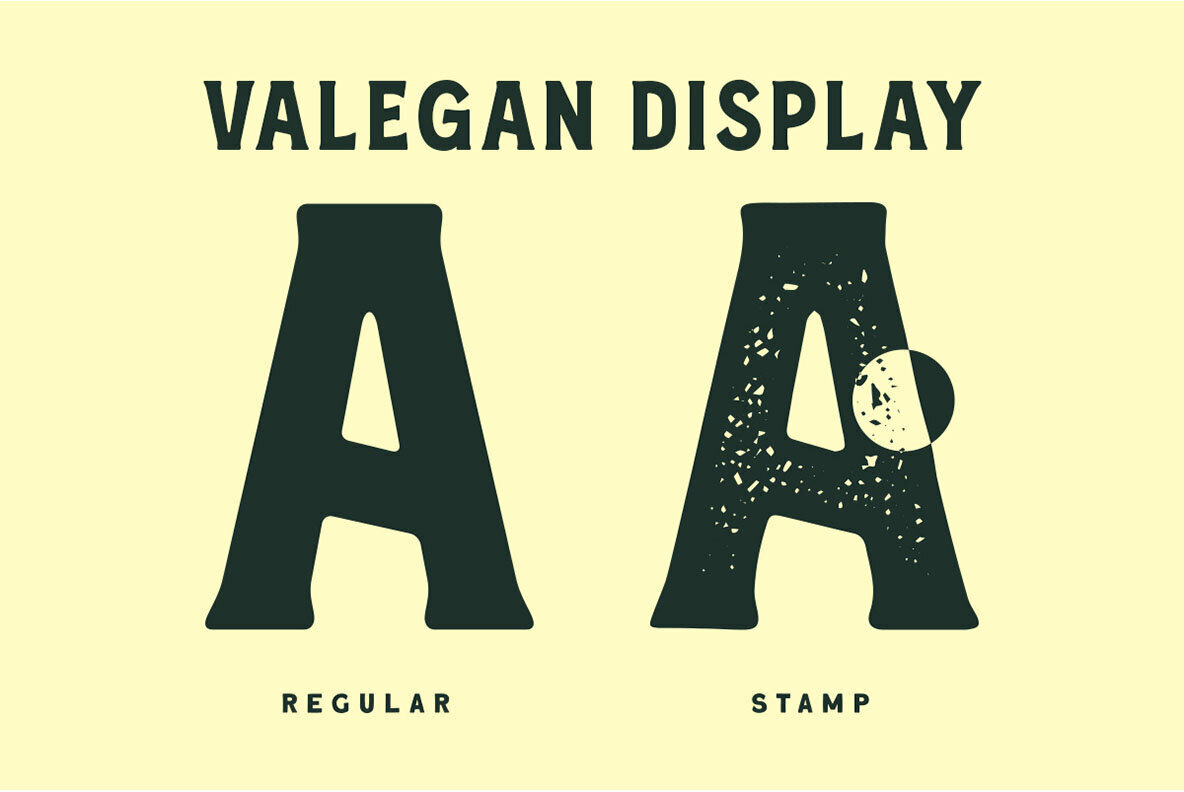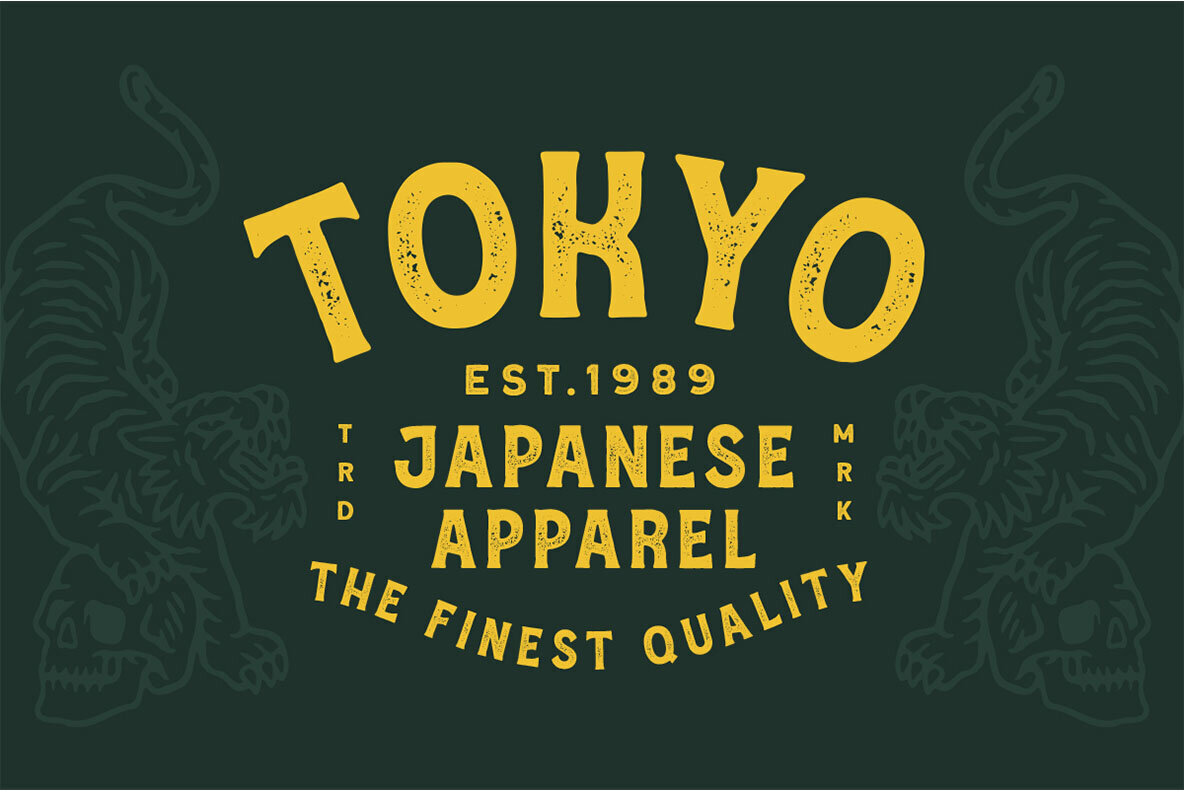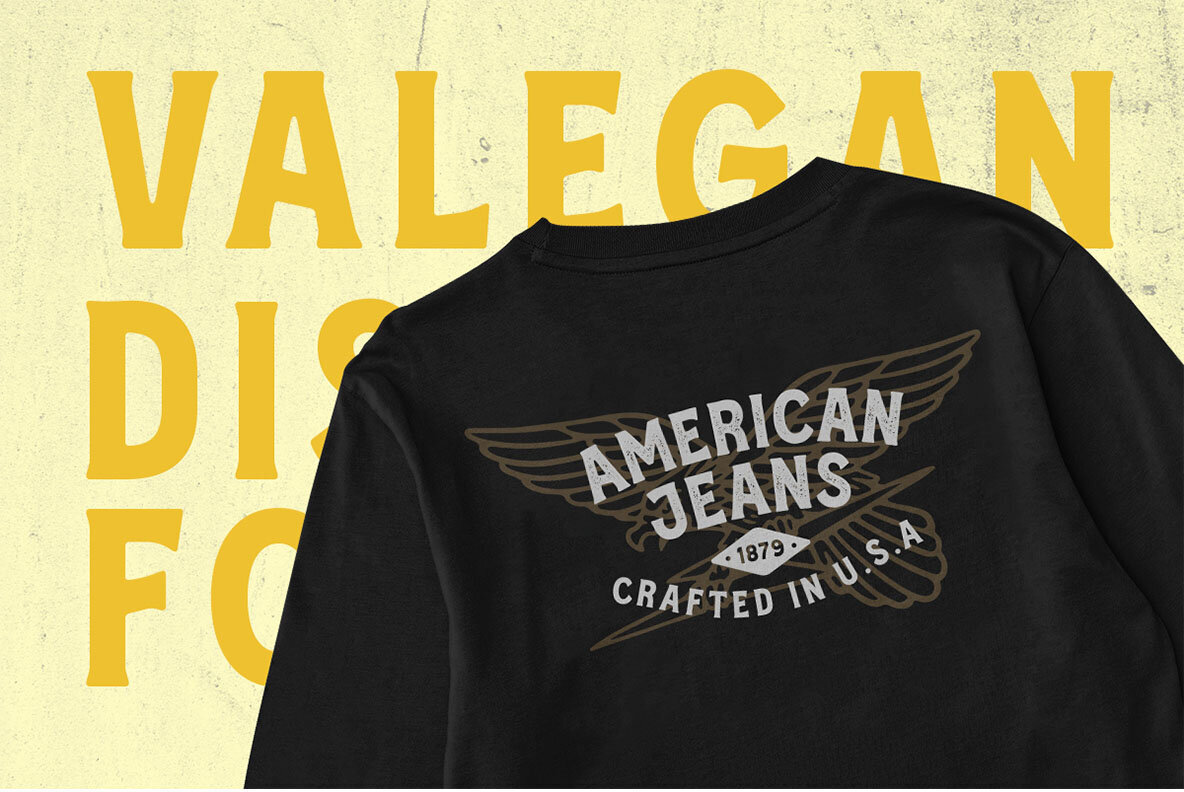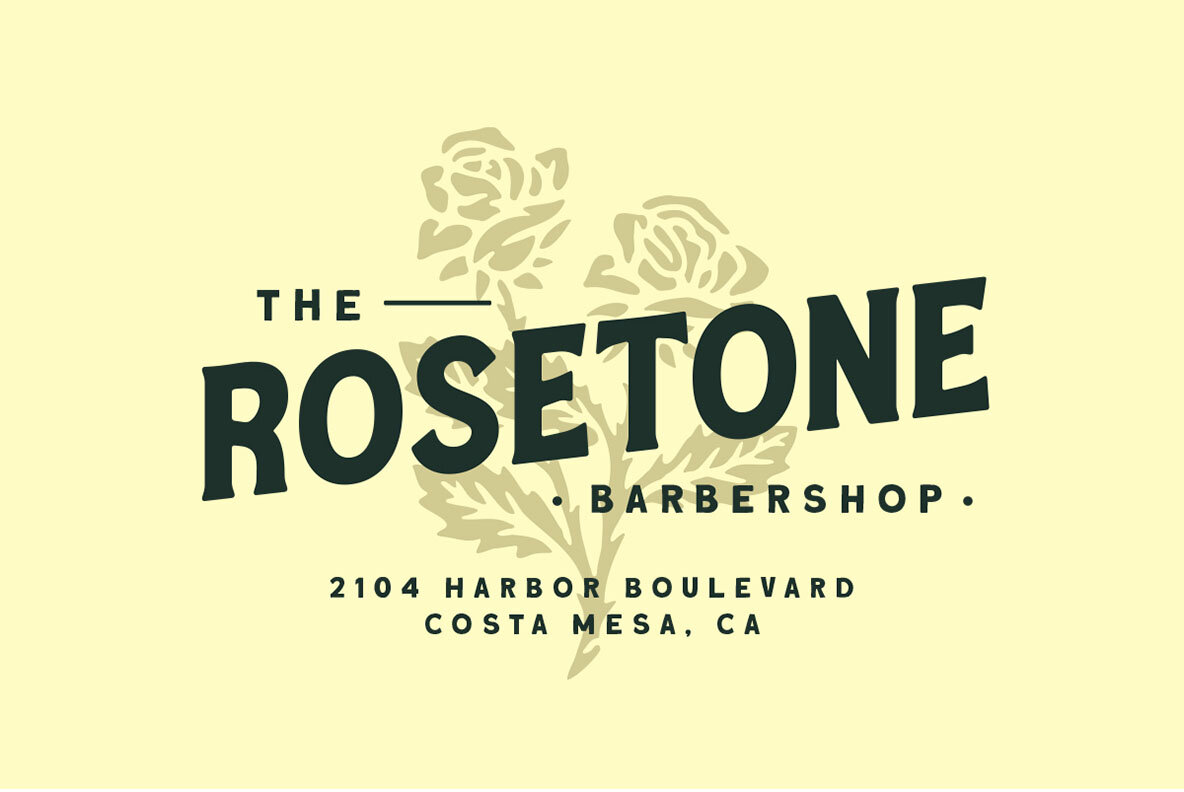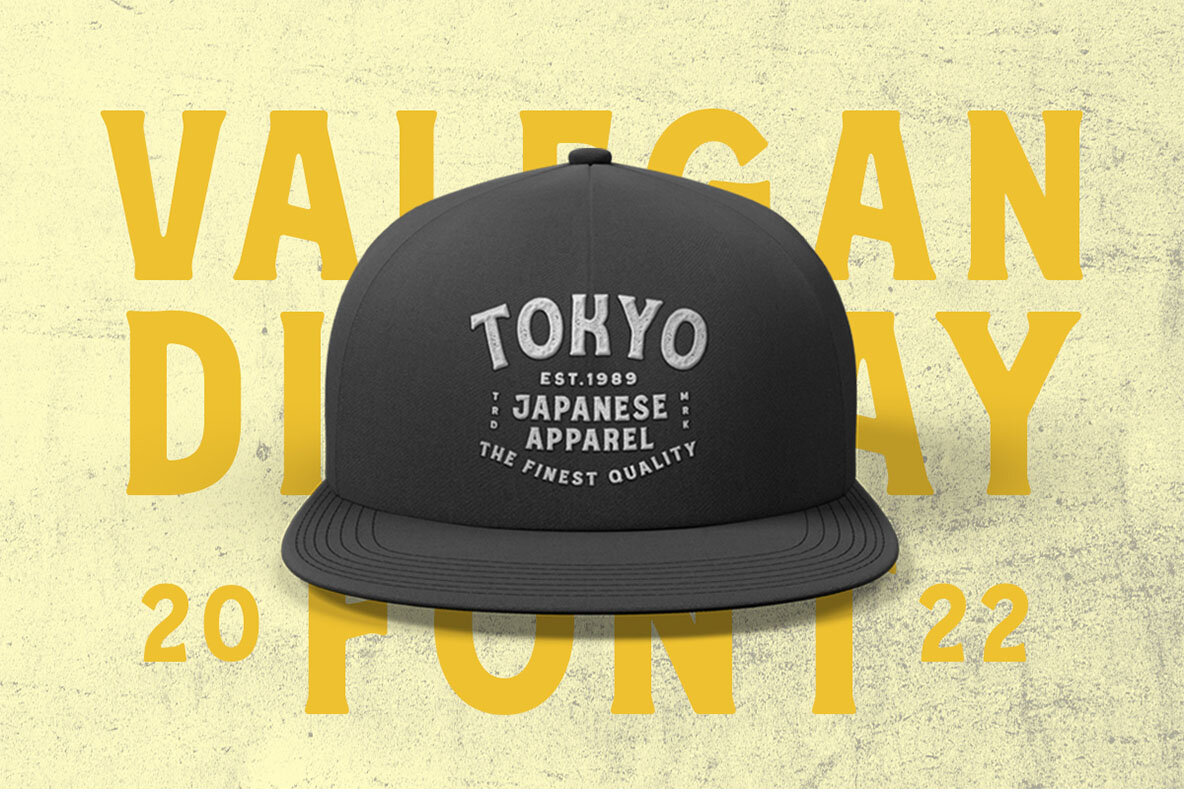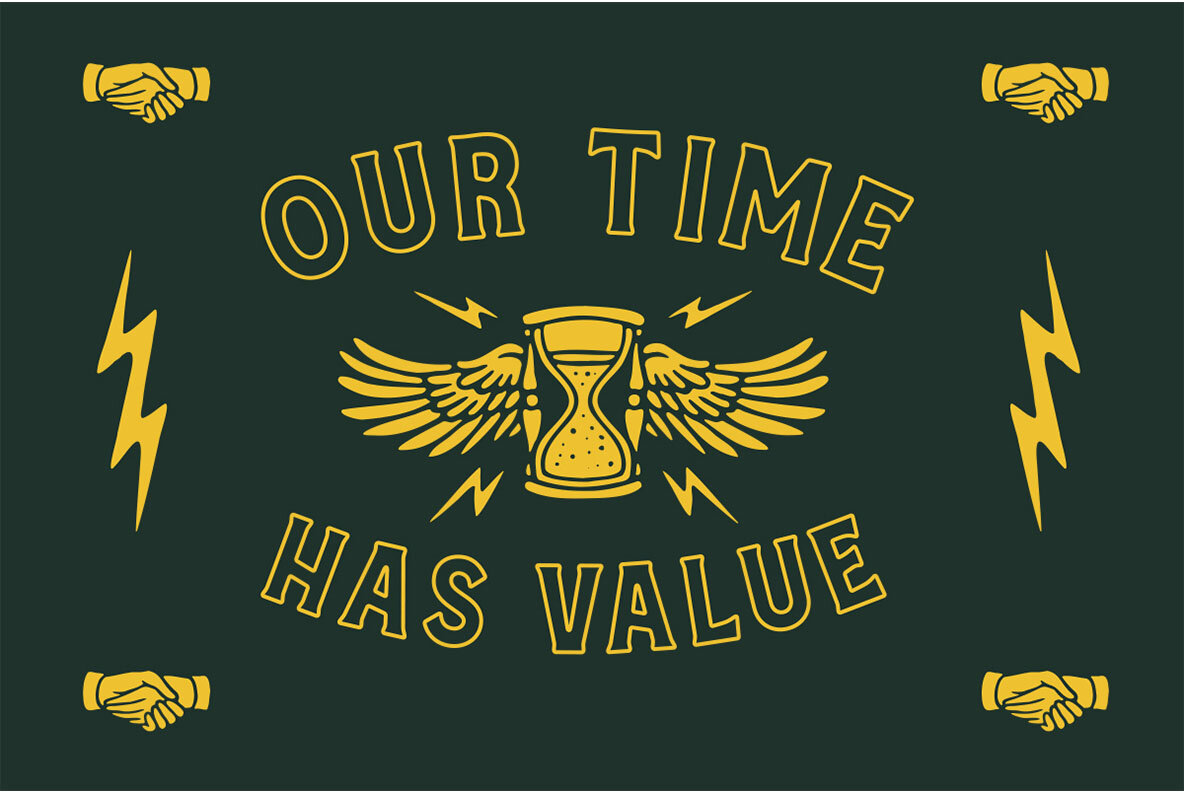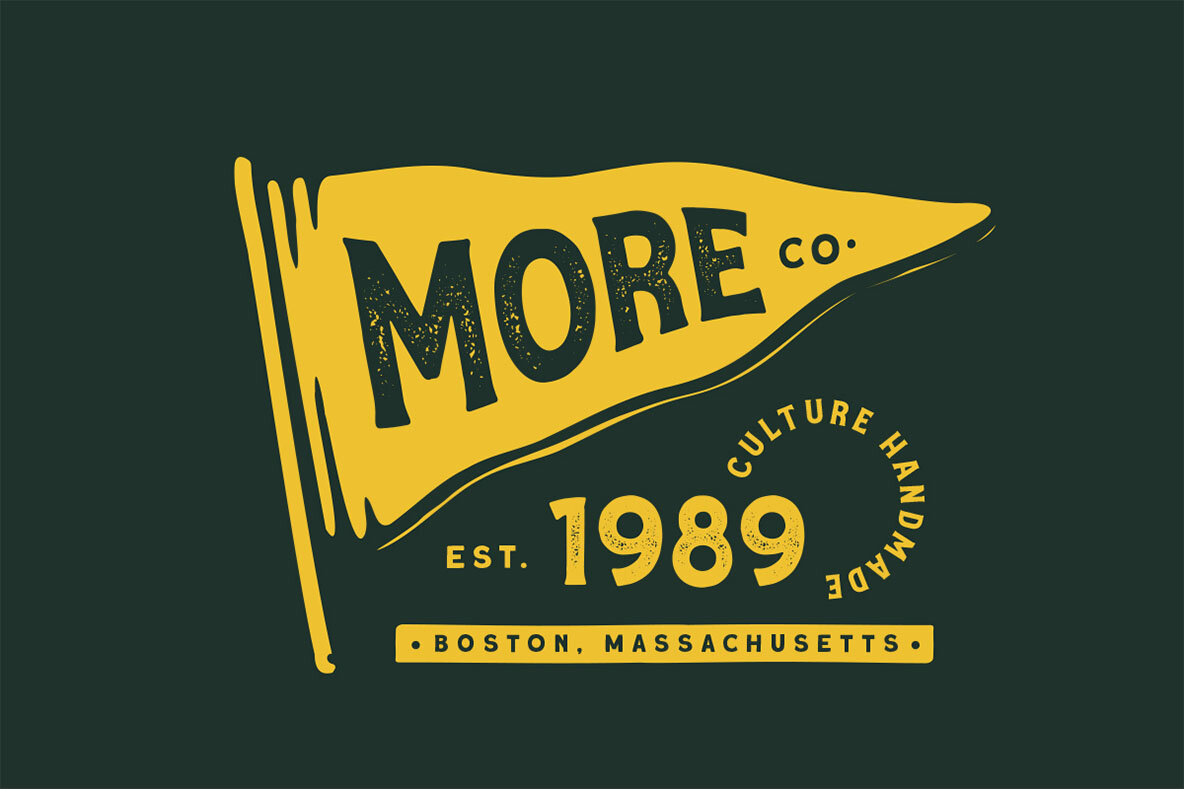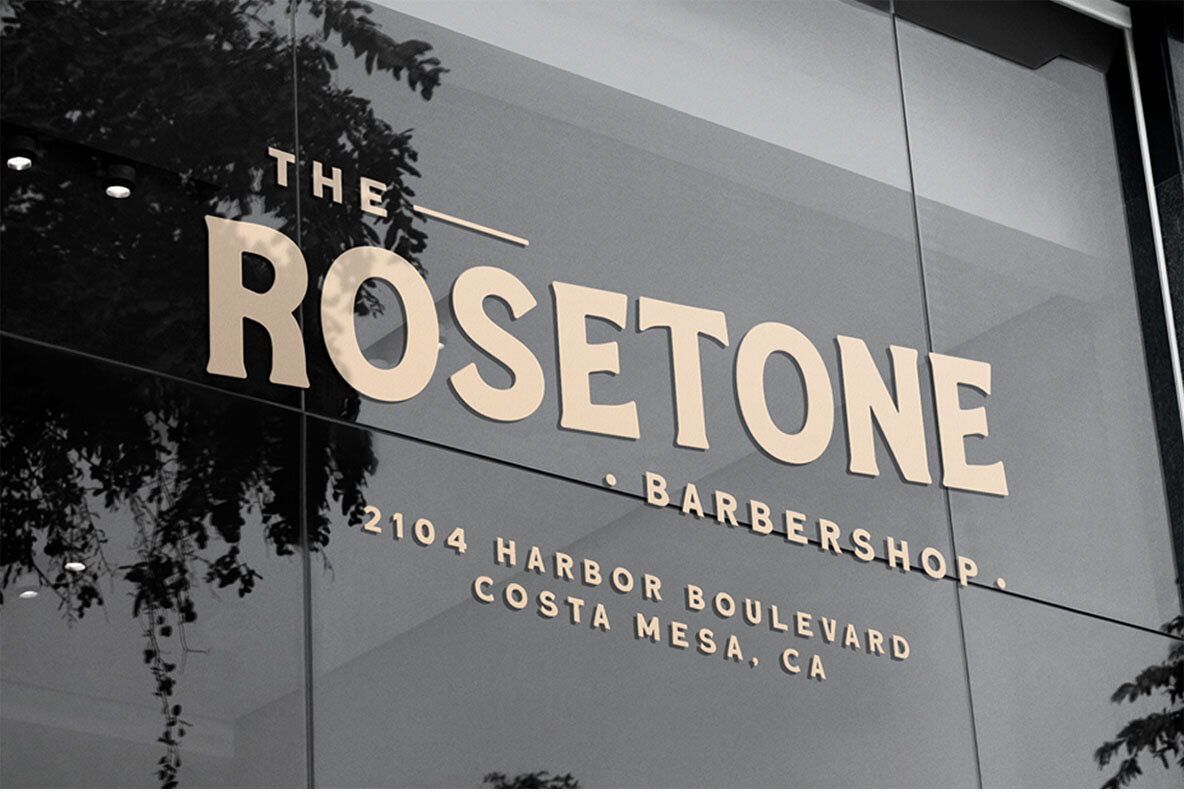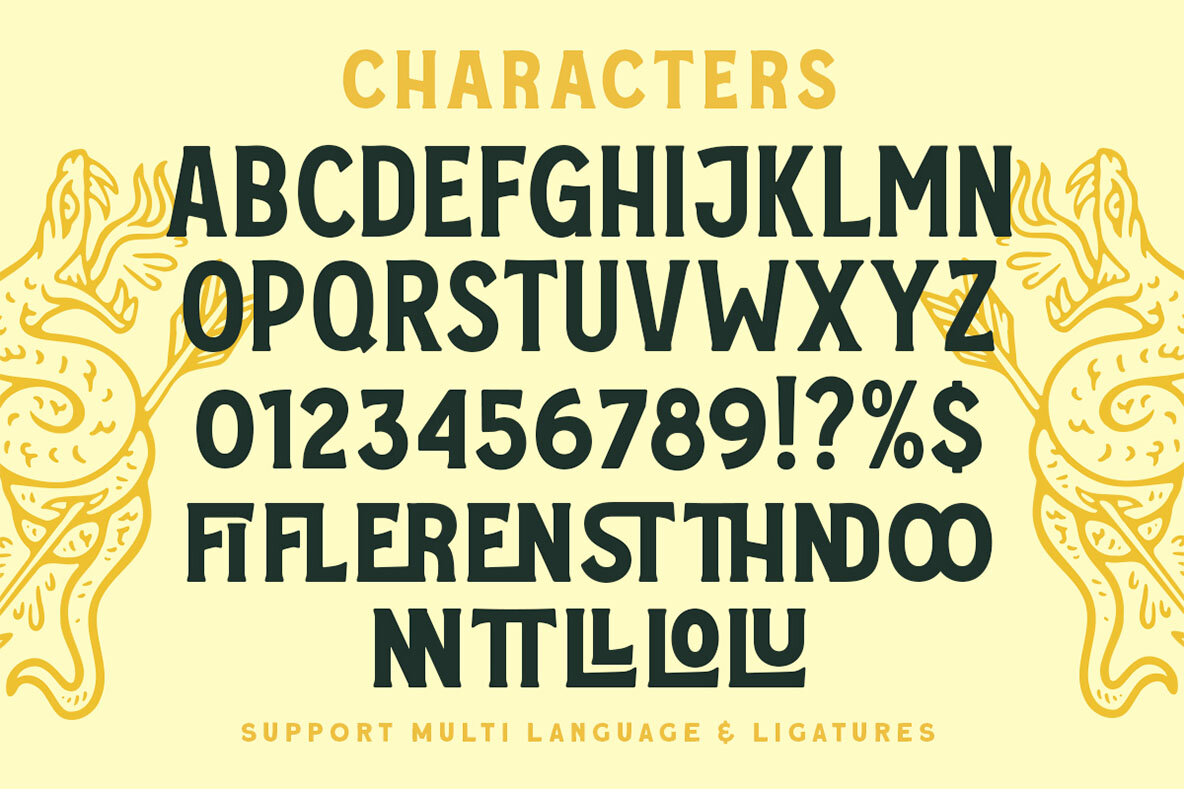
Valegan Font
Valegan by Letterhend Studio invites the beauty of a bygone era into modern design projects with its vintage-inspired display style. Perfectly suited for a variety of applications, this typeface enriches logos, headlines, signage, and formal documents such as invitations and greeting cards. Whether you're crafting a magazine spread or designing wedding stationery, Valegan adds an authentic touch to both digital and print mediums. Incorporate Valegan into your work and enjoy its vintage elegance fused with creative versatility, ensuring your projects stand out with a distinct artistic touch.Valegan: Vintage Display Font with Artistic Flair